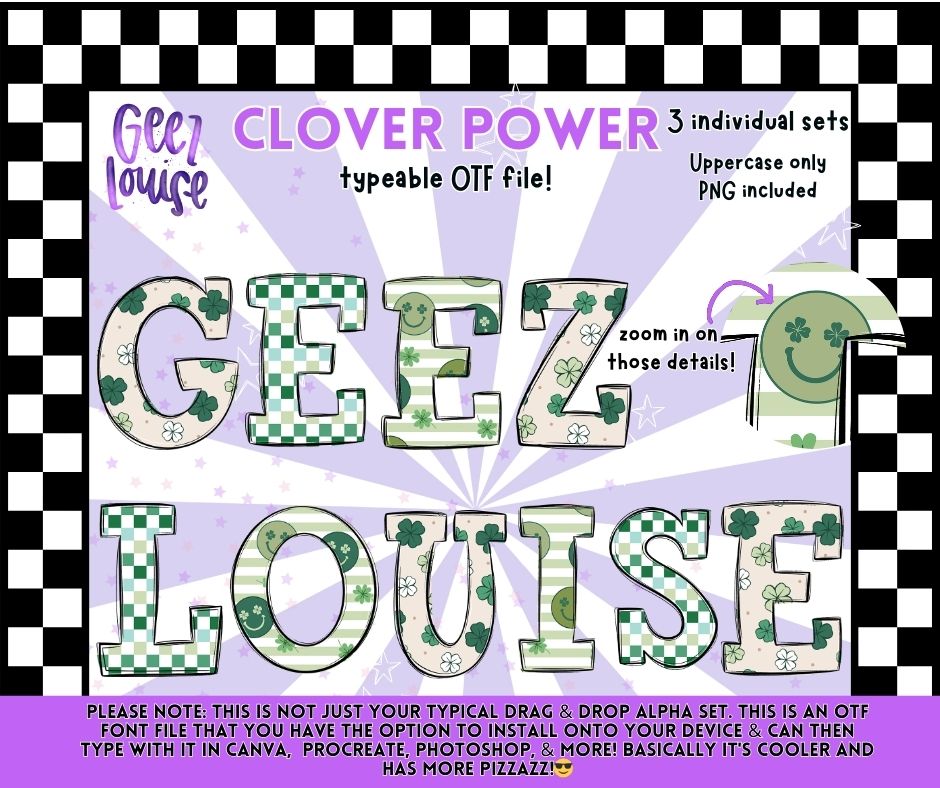
Clover Power Typeable OTF Alpha Font + PNG Set (Uppercase)
Bring the luck and the attitude with Clover Power, a bold, playful typeable OTF alpha font designed for maximum creative flexibility.
3 Coordinated Clover-Themed Styles
Uppercase Letters Only
🍀 Design Details
Shamrocks, checkers, stripes, and lucky details throughout
Hand-drawn look with bold outlines
This font gives you more freedom, more speed, and more pizzazz than a traditional alpha set.